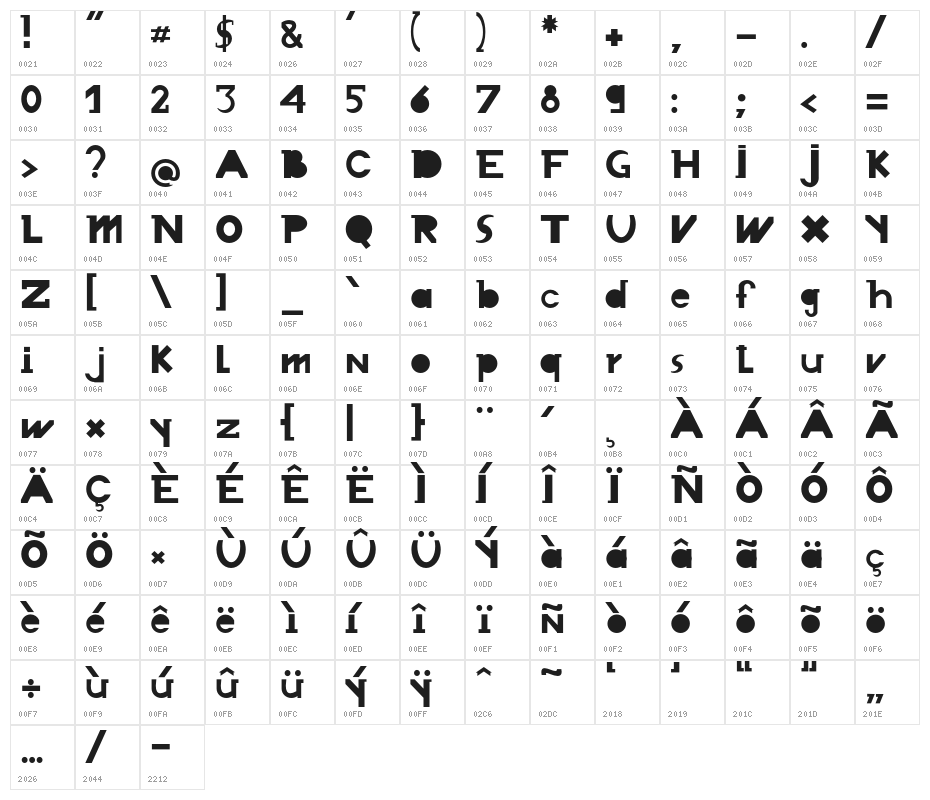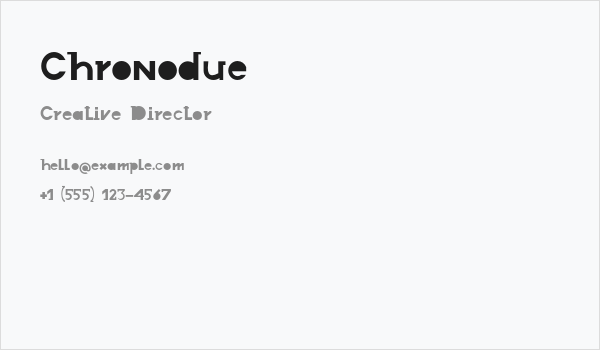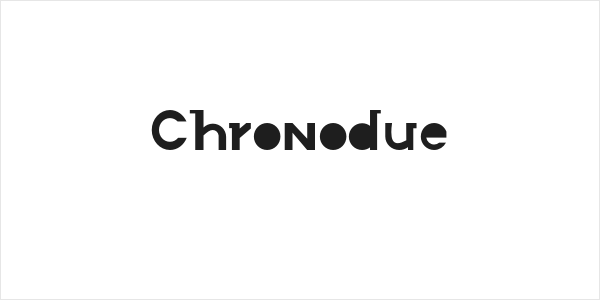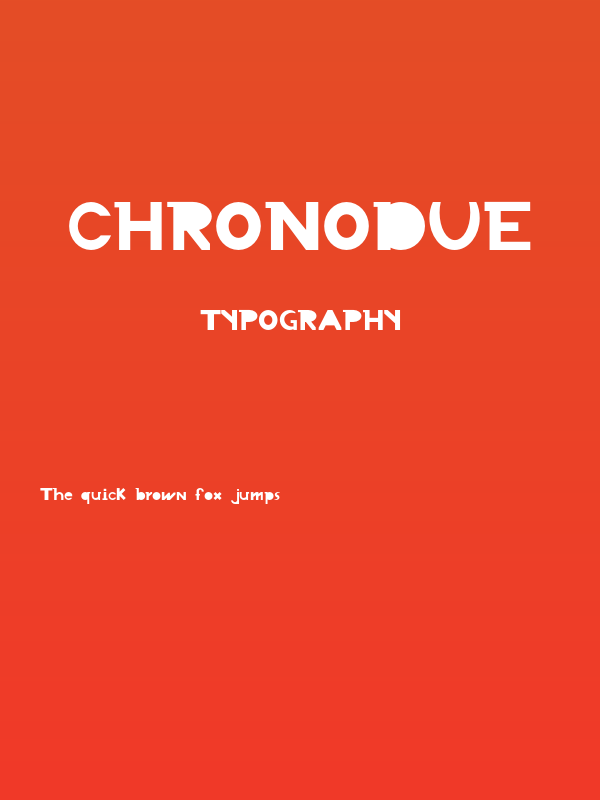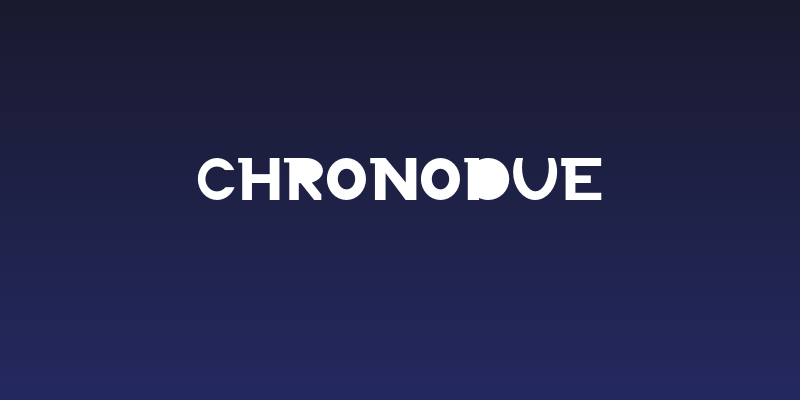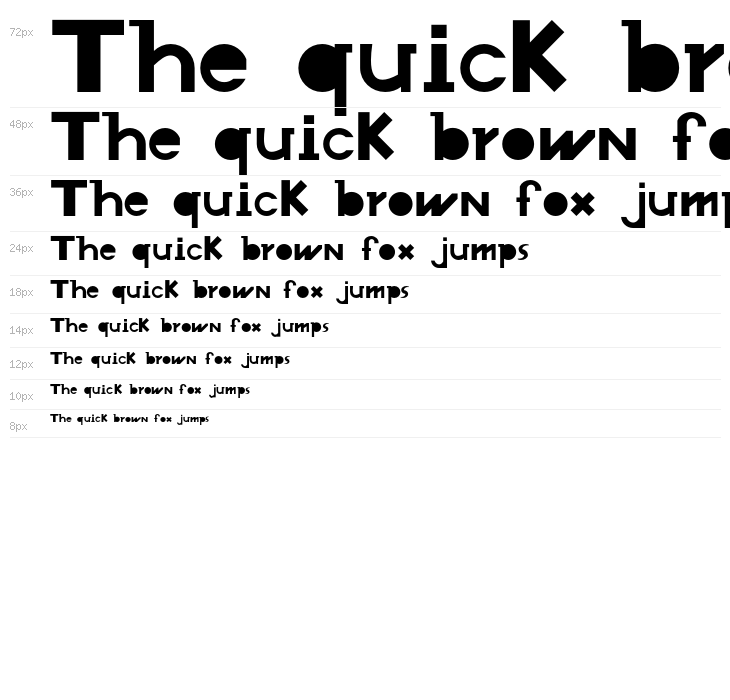
Chronodue Font
Chronodue Description
This font features a bold and geometric design with a strong emphasis on angular shapes and sharp edges. The uppercase letters are particularly striking, with a mix of solid and cut-out elements that create a dynamic and modern appearance. The lowercase letters maintain the geometric theme, offering a cohesive look across the typeface. Numbers and special characters are designed with the same boldness, ensuring consistency throughout. The overall style is eye-catching and suitable for projects that require a contemporary and assertive visual impact.
| Proposed Projects | Ideal for branding, posters, headlines, and any design needing a modern and bold statement. |